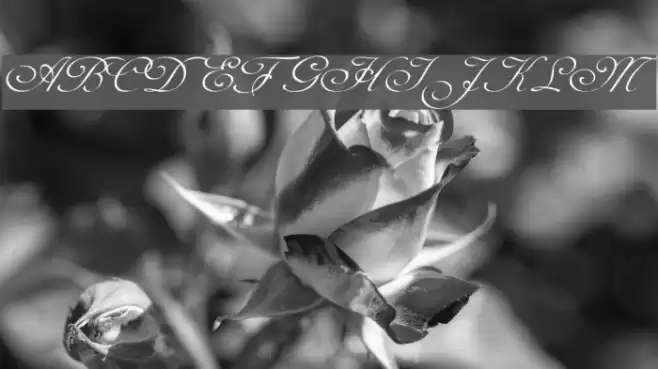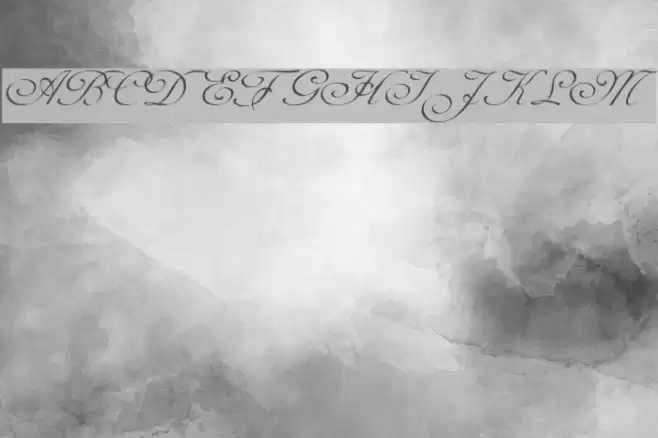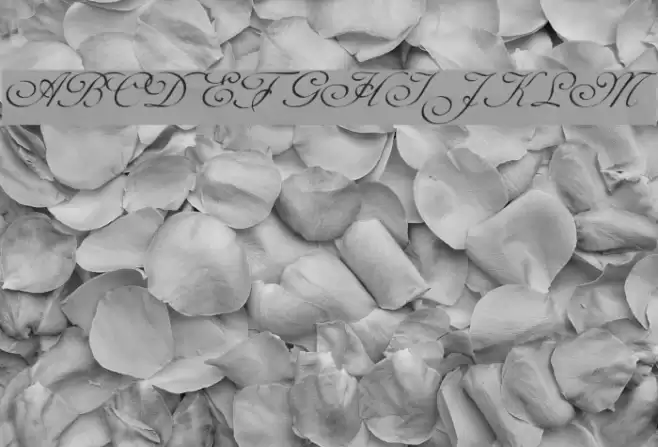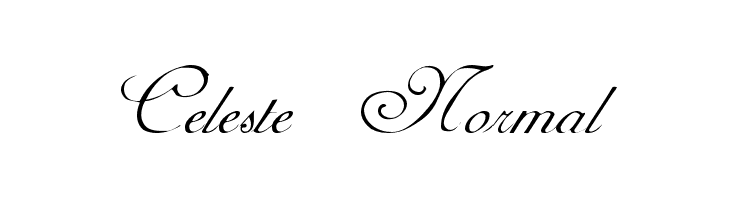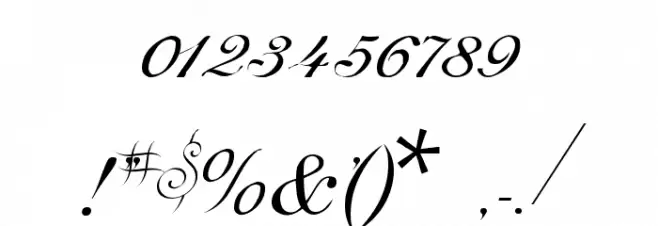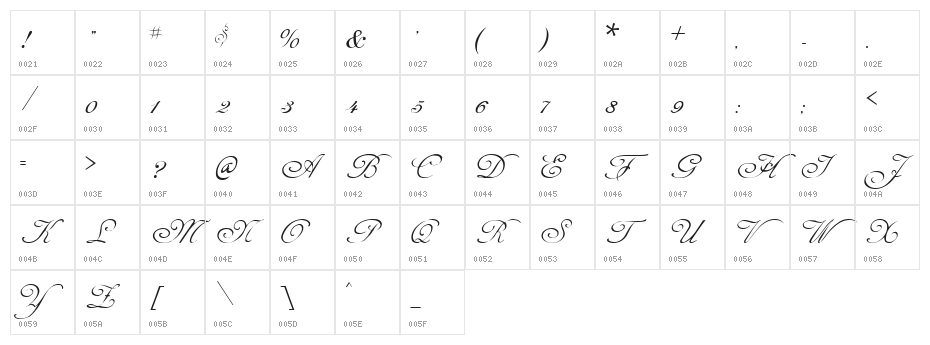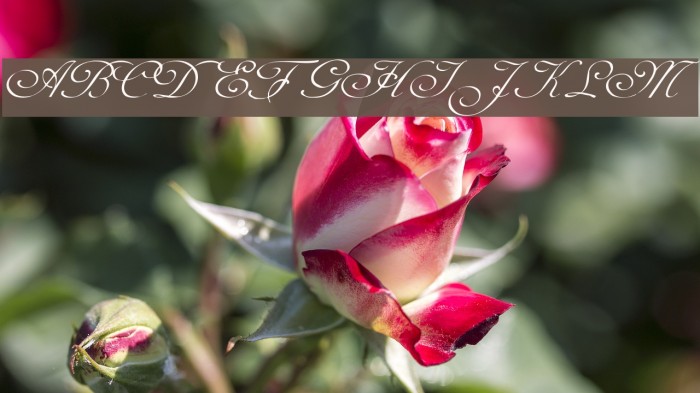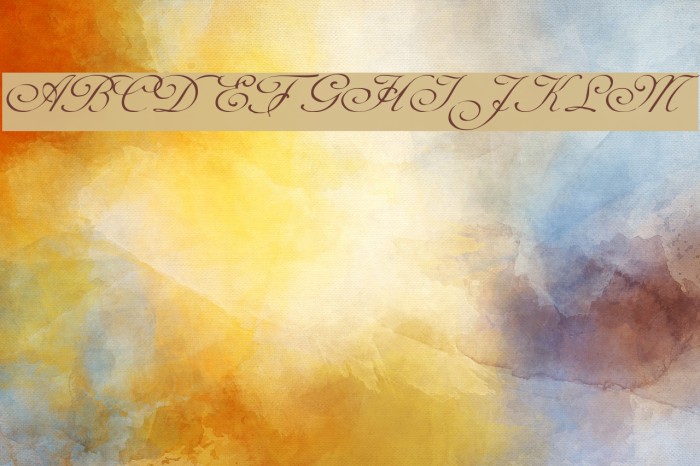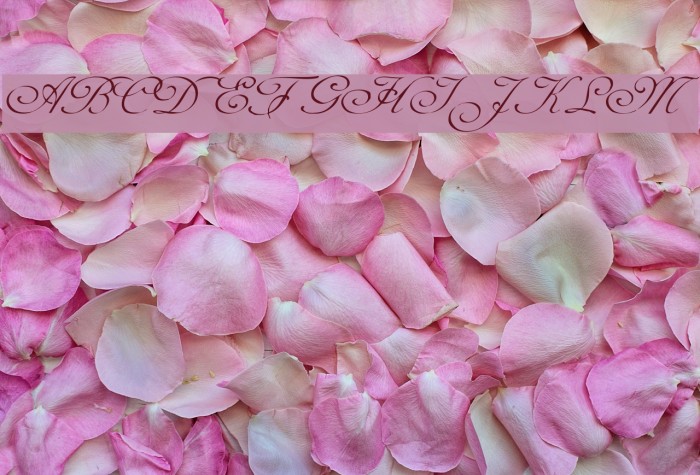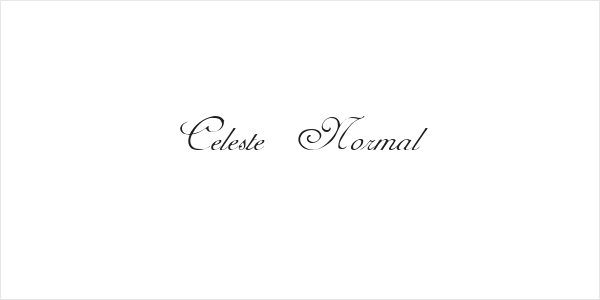
Celeste Normal Font
Celeste Normal Description
This elegant script font features flowing, cursive letterforms with intricate swashes and flourishes. The uppercase letters are particularly ornate, with loops and curves that add a touch of sophistication and grace. The lowercase letters maintain a smooth and connected style, making it suitable for formal invitations or decorative purposes. The numerals and special characters are designed to complement the overall aesthetic, ensuring consistency across all text elements. This font exudes a sense of luxury and refinement, perfect for projects that require a touch of elegance.
An elegant script font with flowing, cursive letterforms and intricate swashes from Script fonts.
- Proposed Projects: Ideal for wedding invitations, luxury branding, elegant stationery, and decorative headings.
- Overall Style: Elegant, Decorative
- Use Case: Headlines, Invitations, Logos